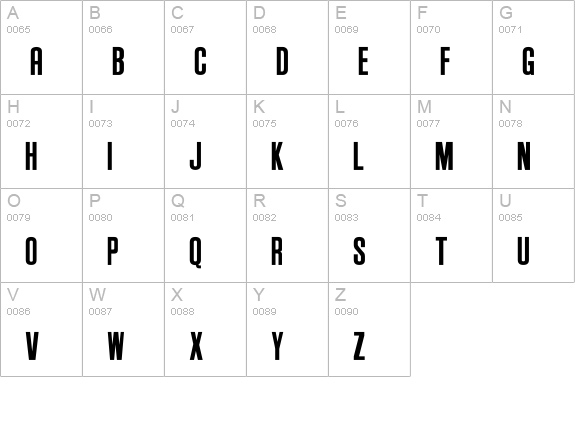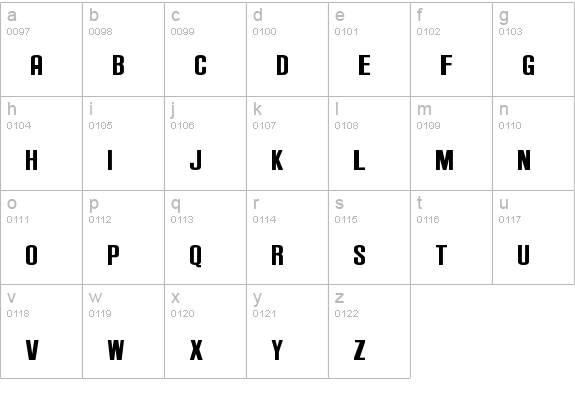
Anderson Supercar Font Details
The Anderson Supercar font is a sleek and modern typeface that exudes sophistication and power. With its sharp edges and bold letterforms, this font is perfect for creating a strong visual impact in your designs. Whether you're working on a poster, logo, or branding project, Anderson Supercar will make your text stand out and leave a lasting impression. Best of all, the Anderson Supercar font is available for free download at FontsMarket.com. This means you can easily access this premium font without any cost, making it a great choice for designers on a budget. Don't miss out on the opportunity to add this stylish and versatile font to your collection today.